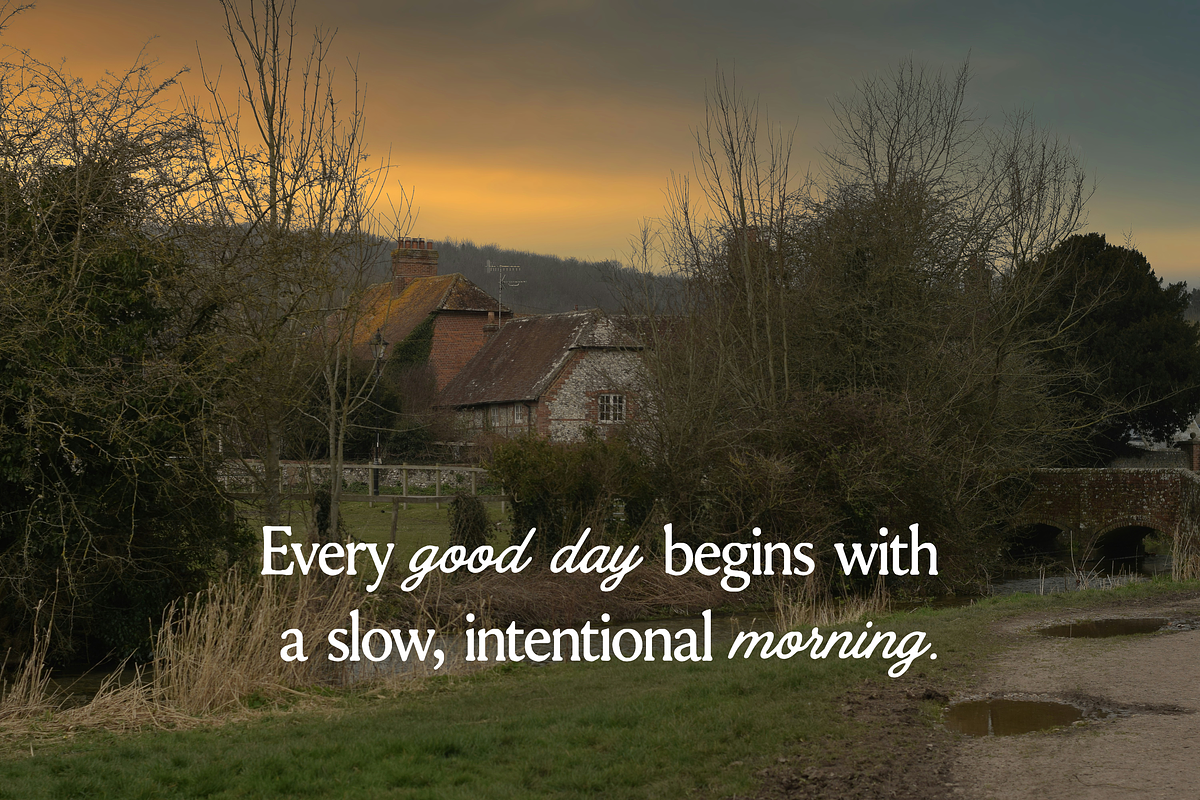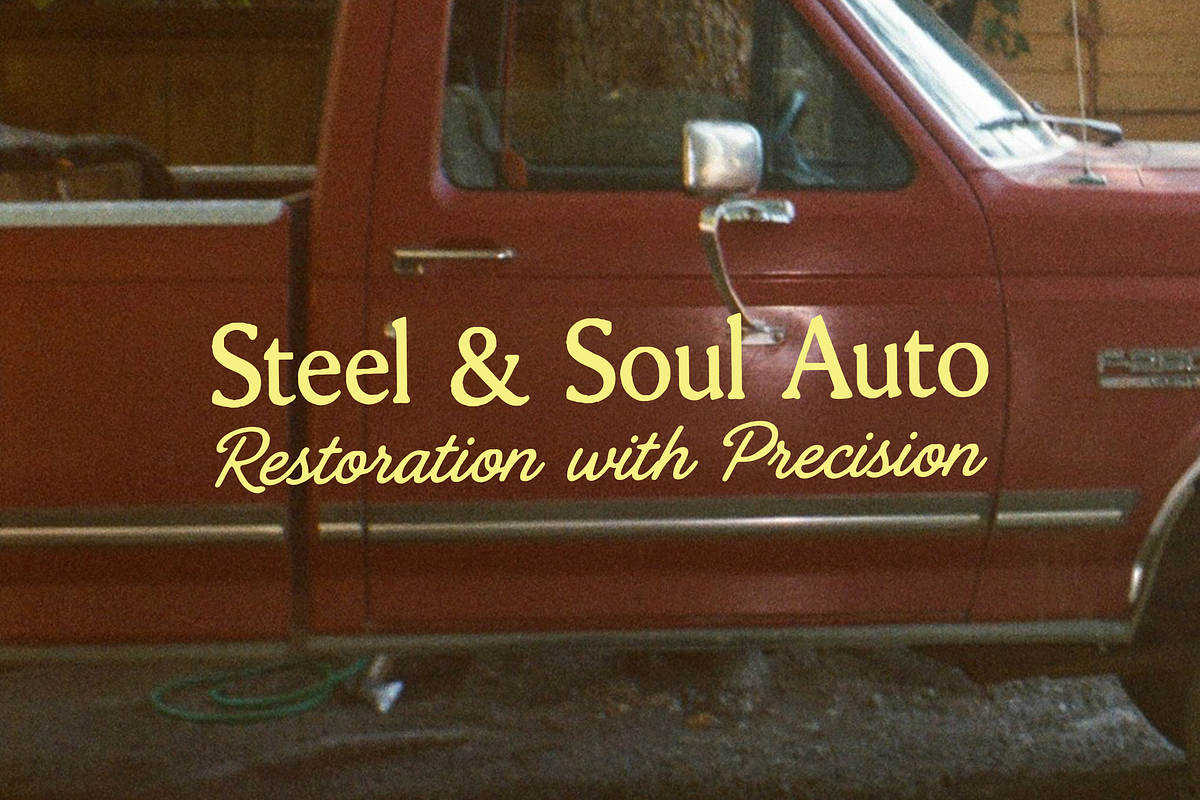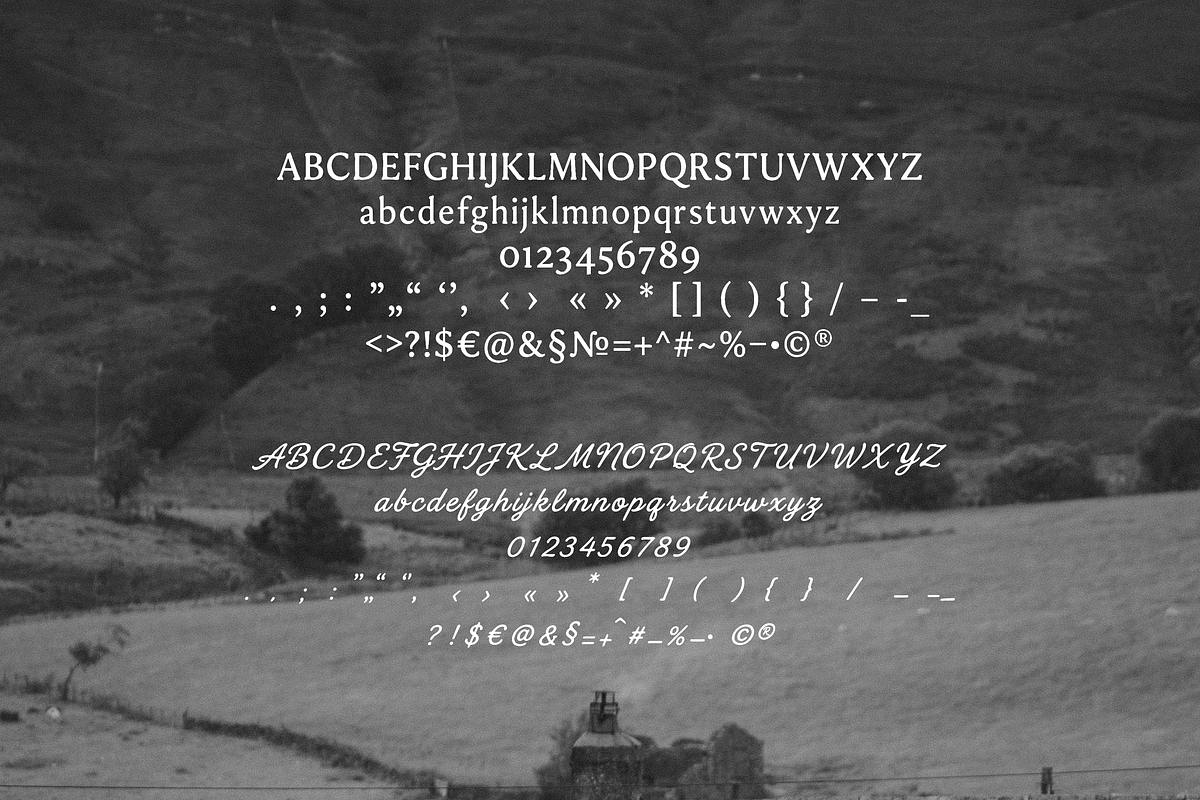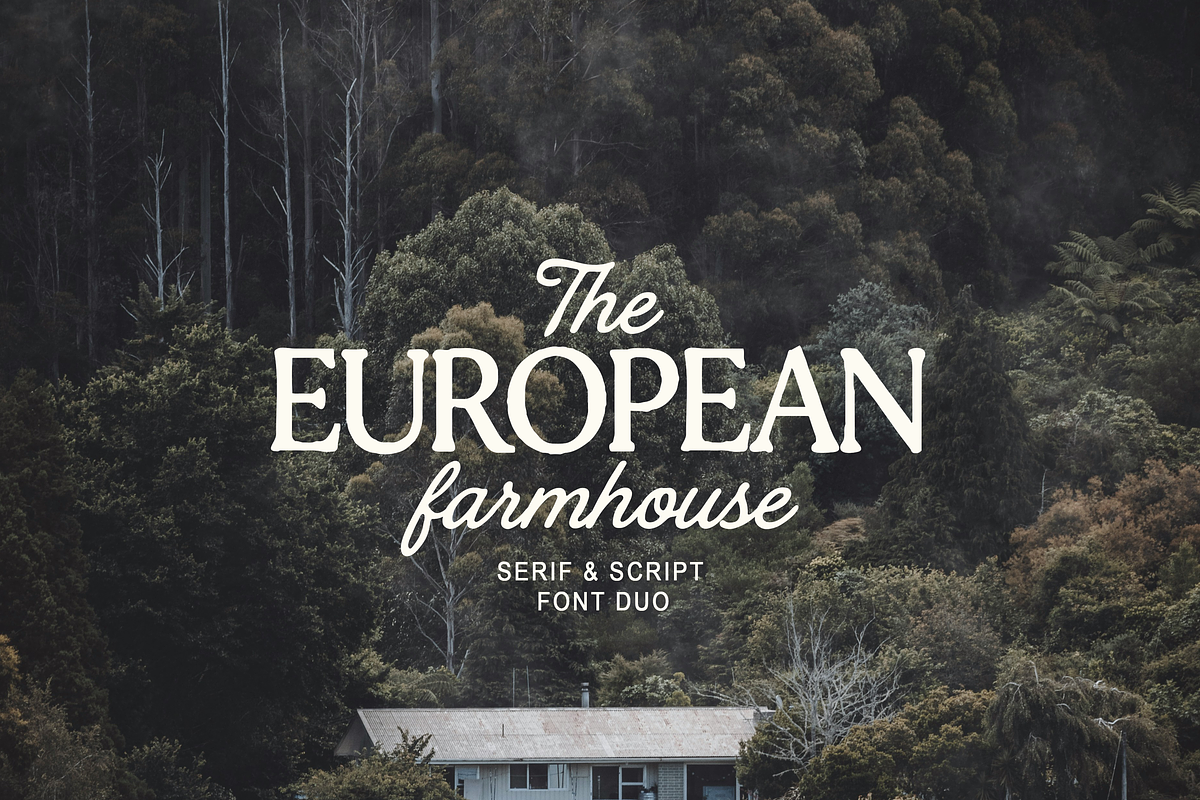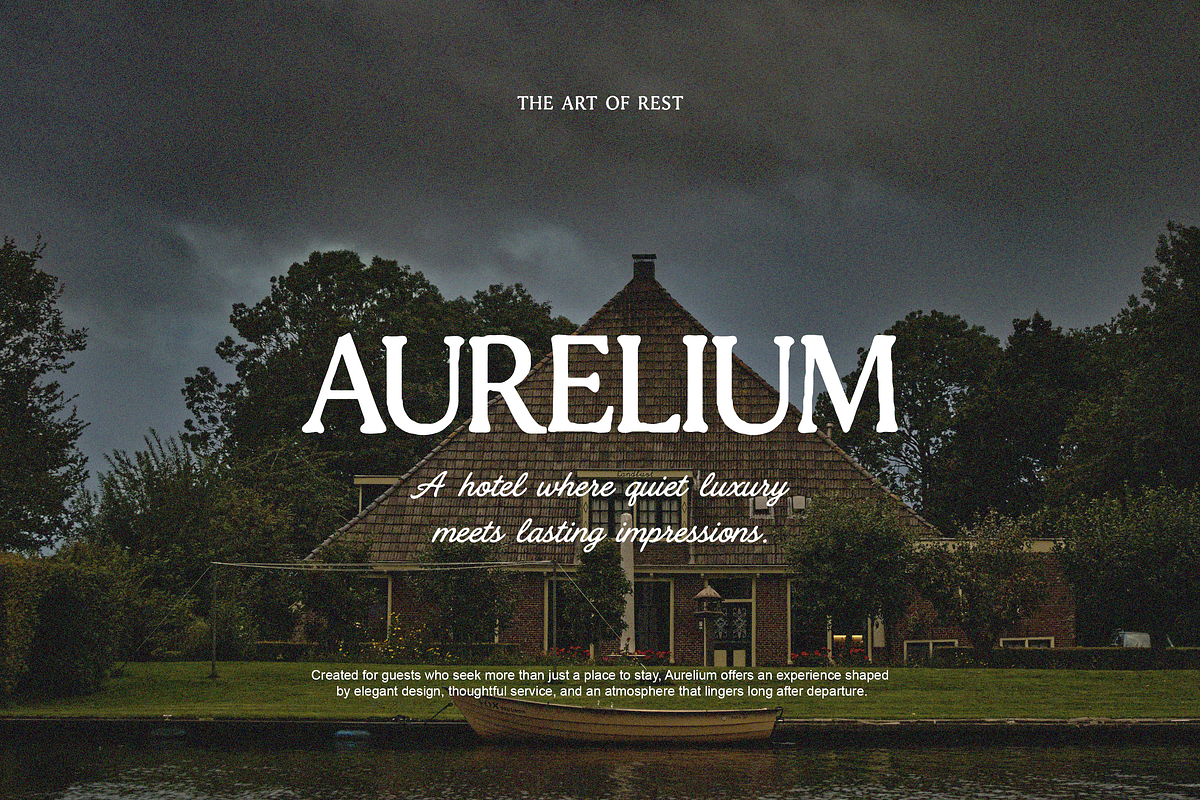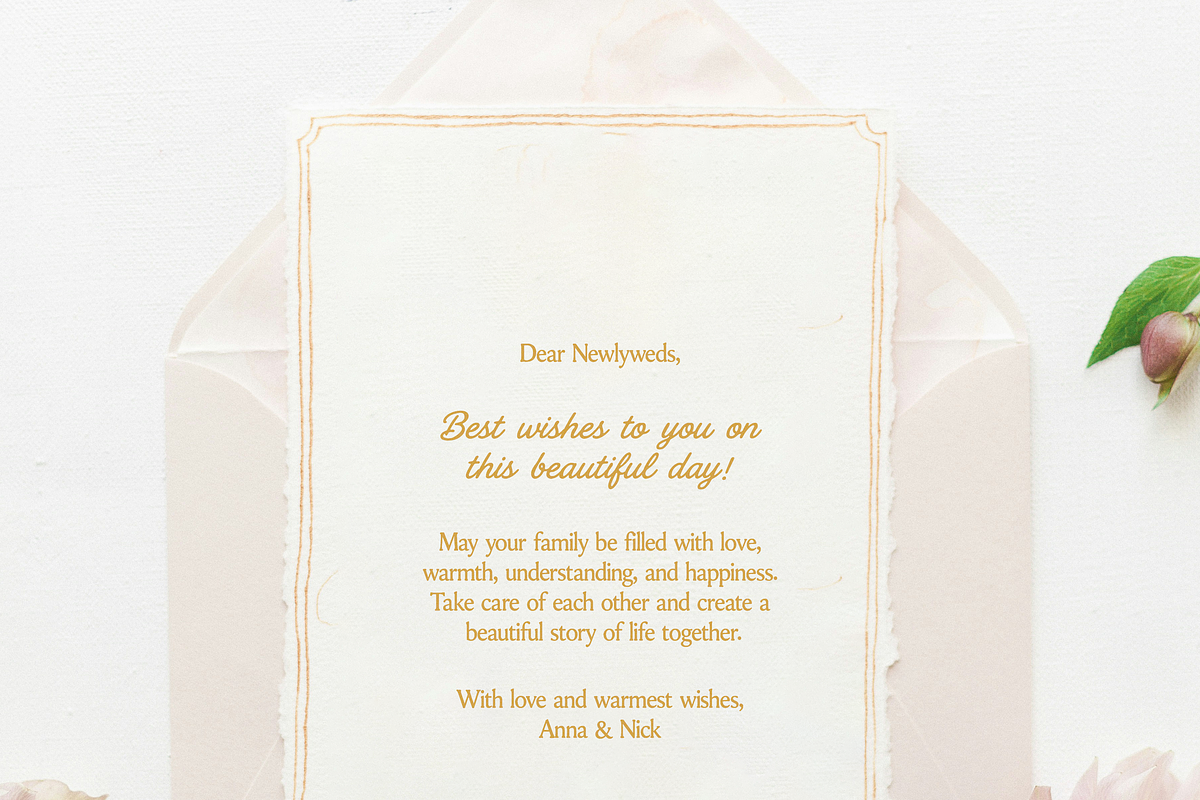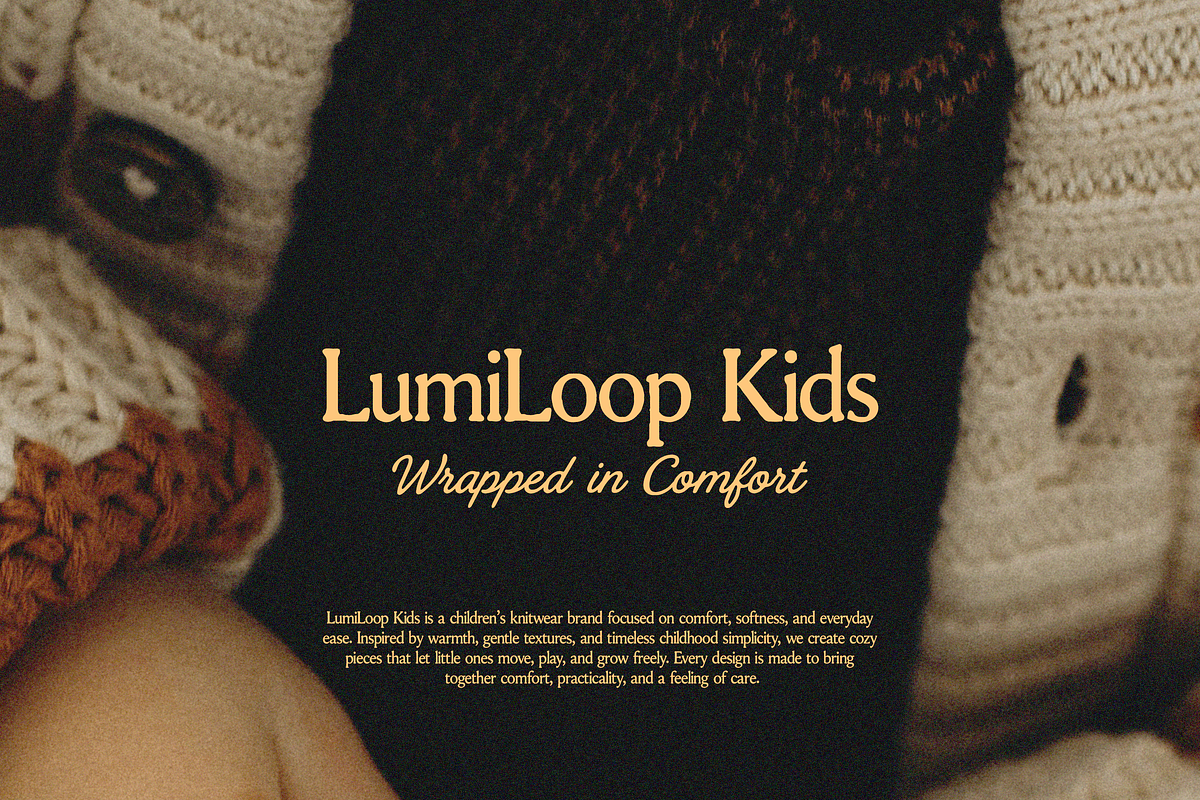
European Farmhouse Font Duo
European Farmhouse is a charming serif and script font duo inspired by rustic elegance, vintage countryside aesthetics, and timeless European style. This typeface pairing combines a bold classic serif with a flowing handwritten script, making it perfect for creating beautiful and distinctive designs.
The serif delivers a refined, editorial feel, while the script adds warmth, personality, and a handcrafted touch. Together, they work beautifully for branding and creative projects that need an elegant farmhouse look.